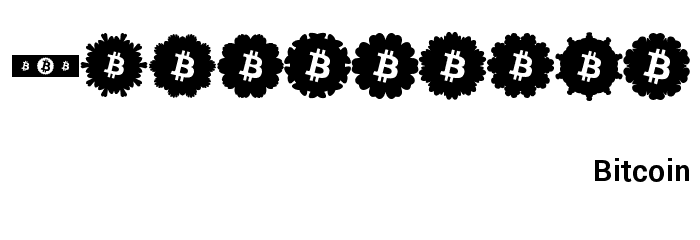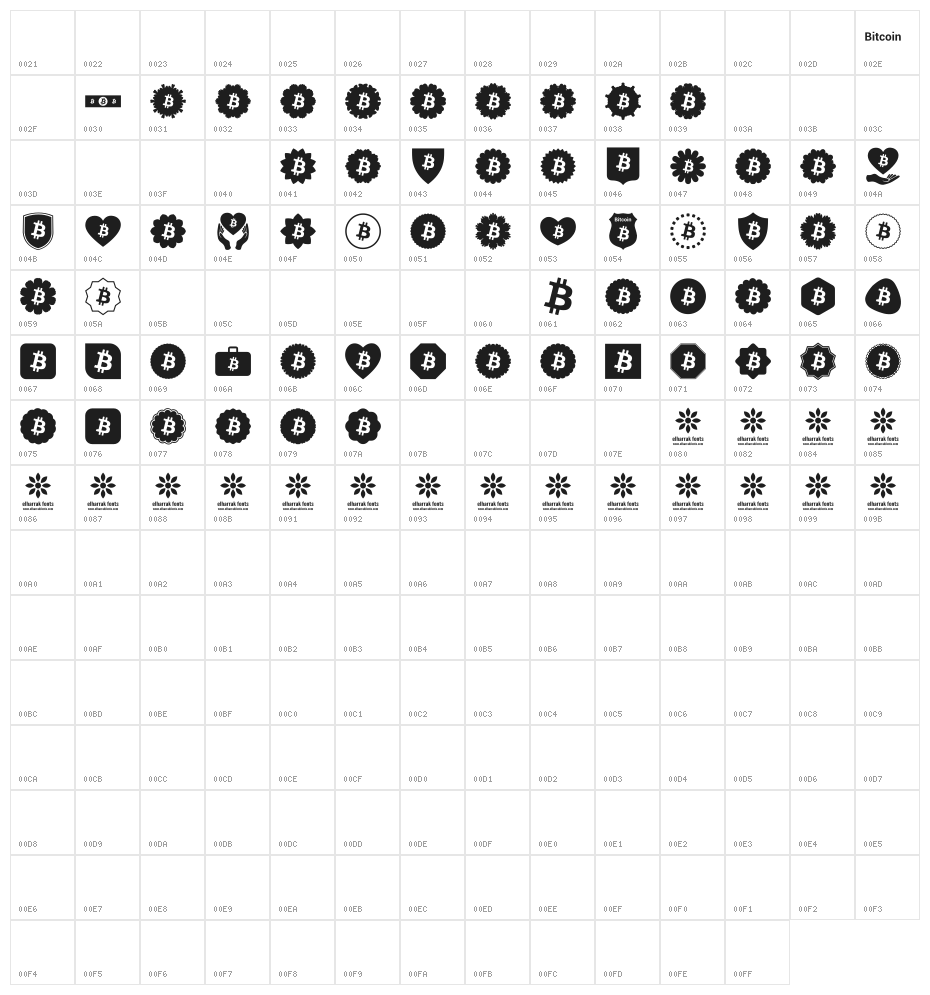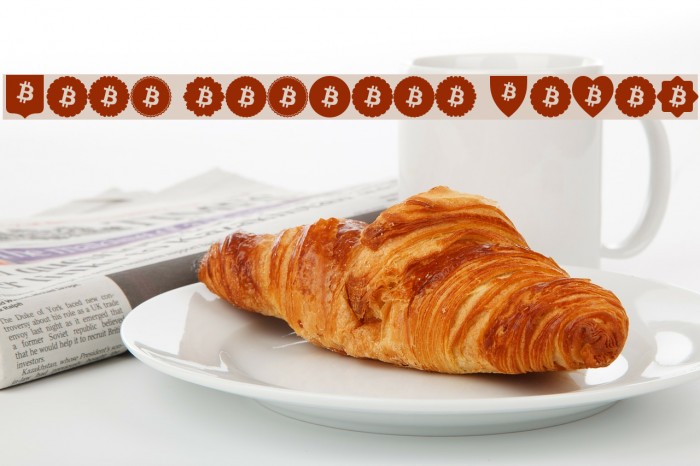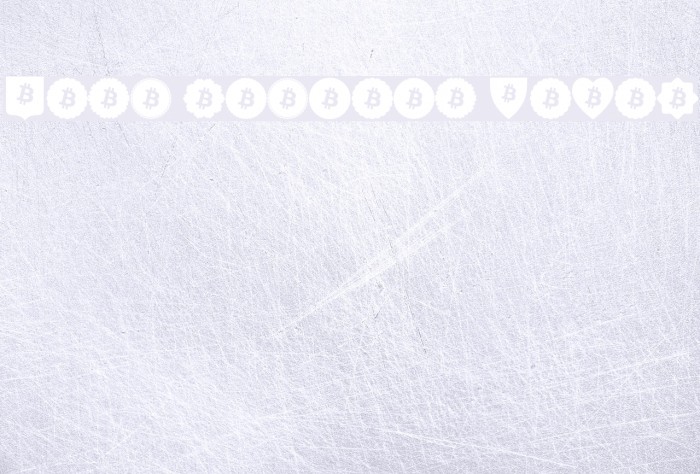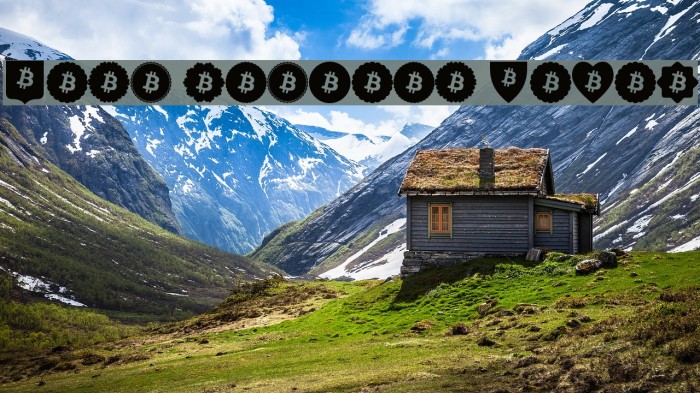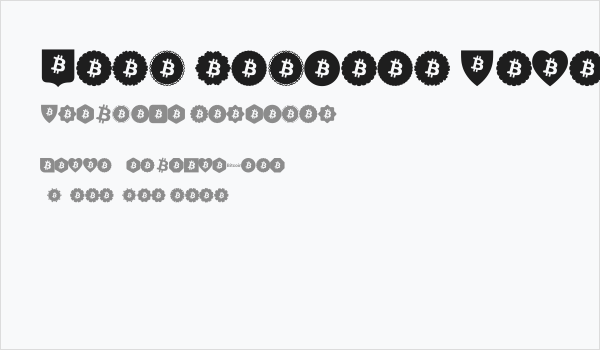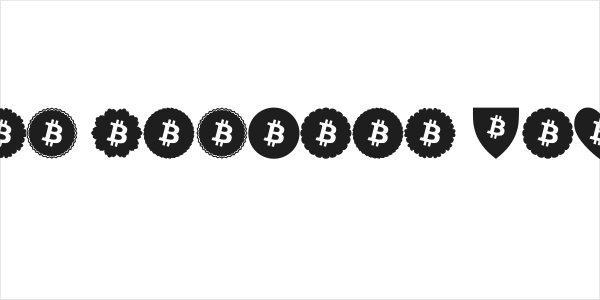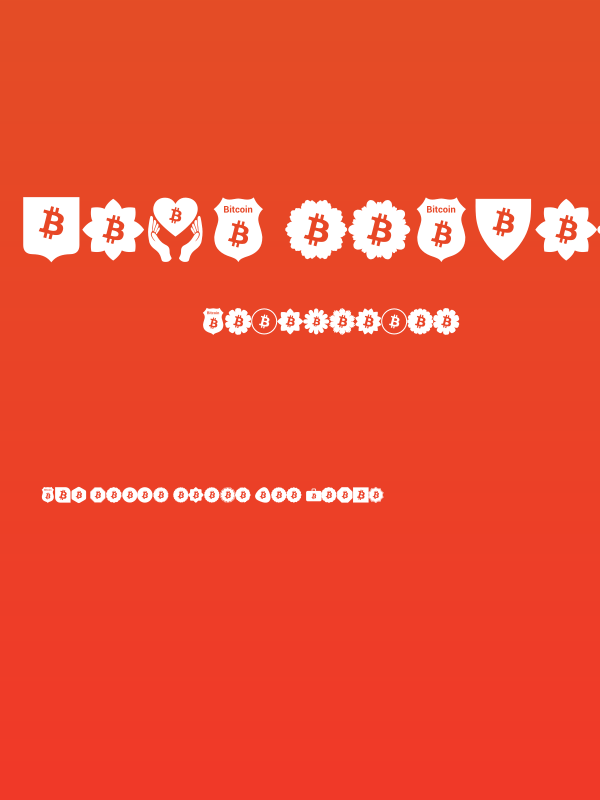
Font Bitcoin Color Font
Font Bitcoin Color Description
This is not a traditional font but a collection of symbols and icons centered around the Bitcoin logo. Each character is represented by a unique design incorporating the Bitcoin symbol, often enclosed within various shapes like circles, shields, and hearts. The designs are bold and visually striking, making them suitable for decorative purposes. The consistent use of the Bitcoin logo across different styles and shapes creates a cohesive theme, ideal for projects related to cryptocurrency or digital finance.
| Use Case | Logos, Branding, Merchandise |
| Proposed Projects | Ideal for cryptocurrency branding, digital finance presentations, and themed merchandise. |